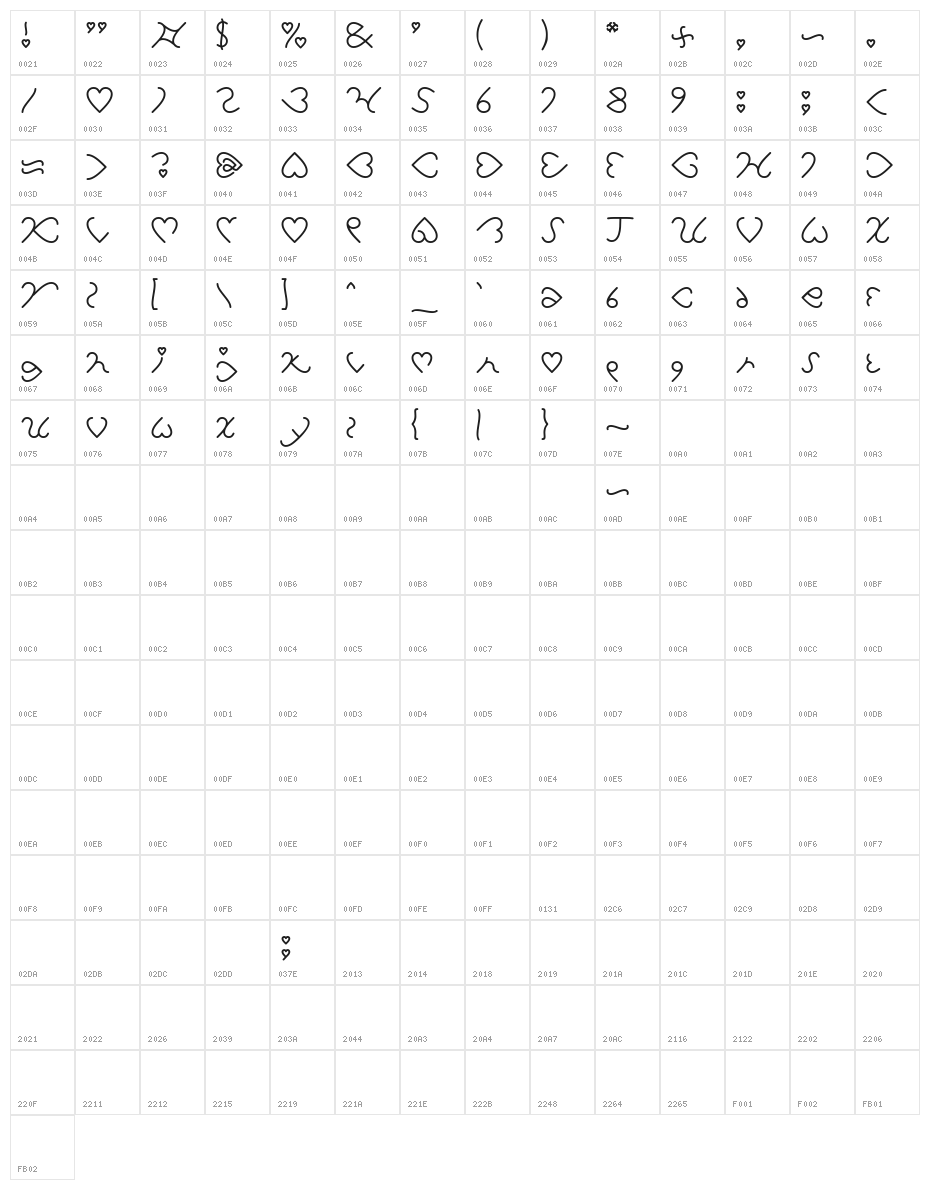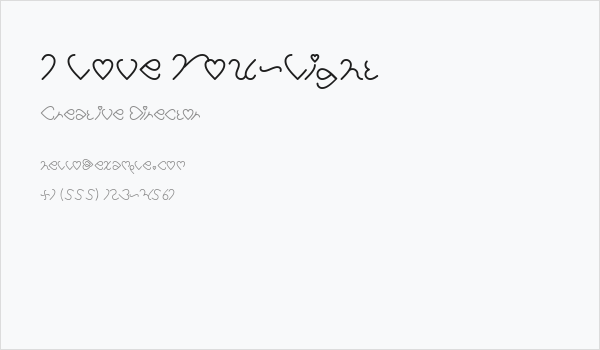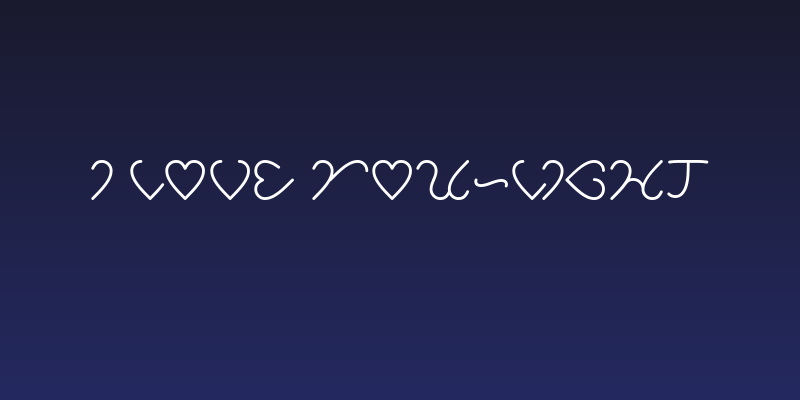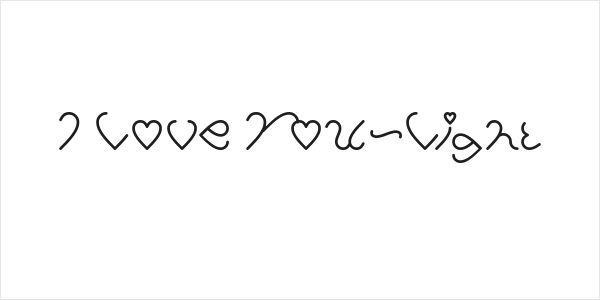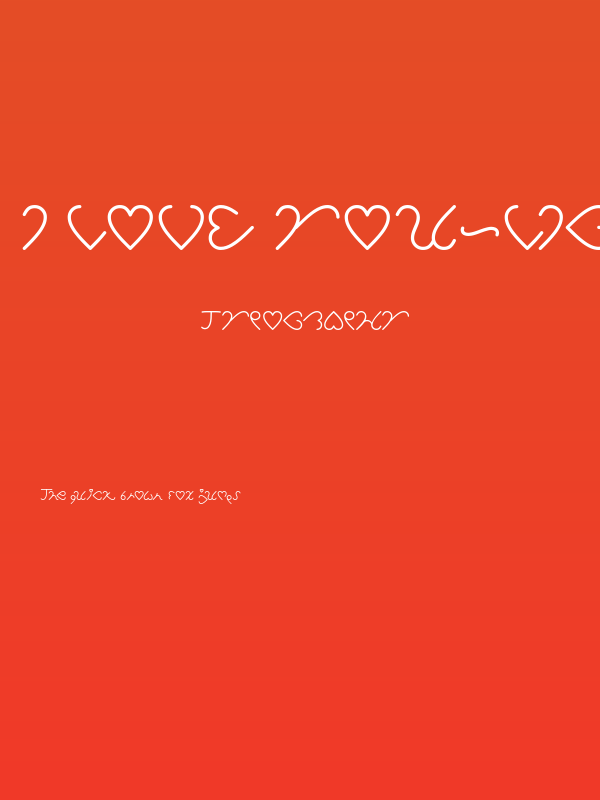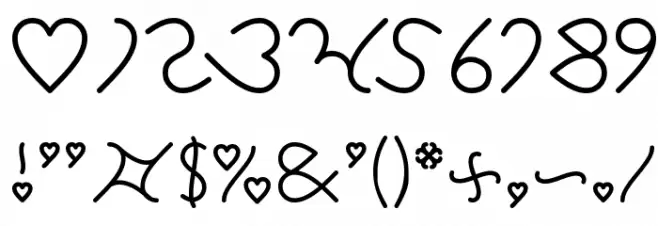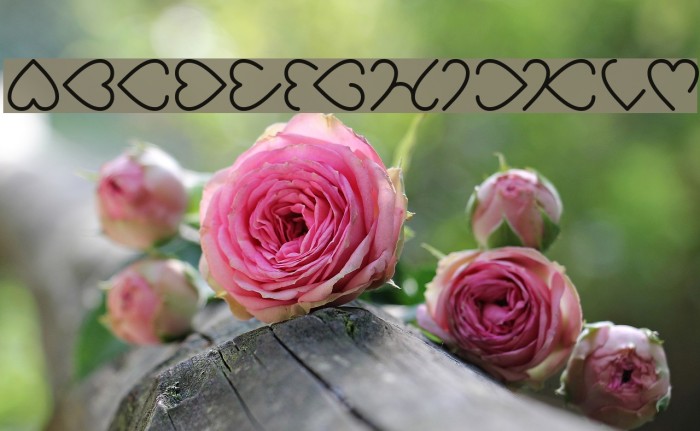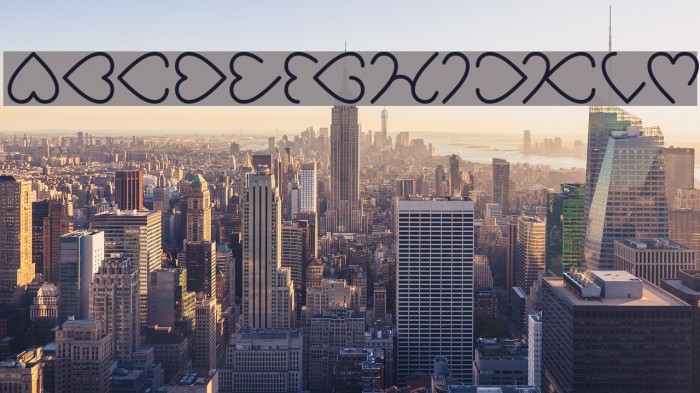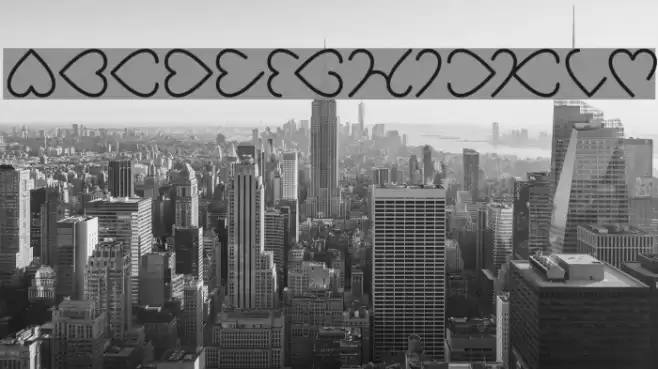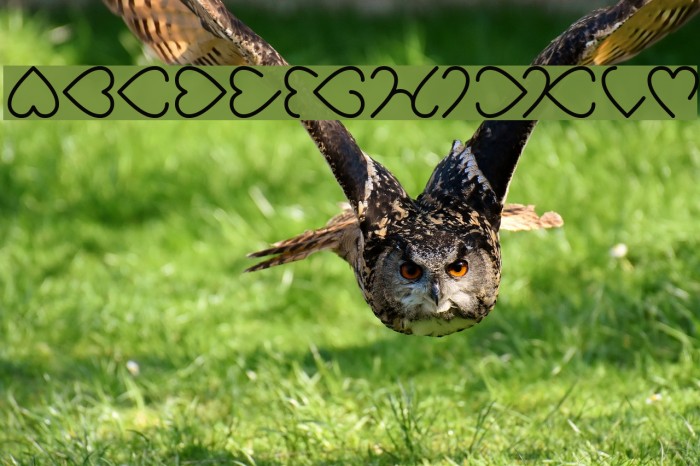
I Love You-Light Font
I Love You-Light Description
This playful and romantic font features heart motifs integrated into each character, creating a whimsical and affectionate style. The letters are crafted with smooth, flowing lines that give a sense of movement and joy. Uppercase and lowercase letters maintain a consistent design, with hearts cleverly incorporated into the structure of each letter. The numerals and special characters also follow this theme, ensuring a cohesive look throughout. This font is perfect for projects that aim to convey love, warmth, and creativity.
| Proposed Projects | Ideal for wedding invitations, Valentine's Day cards, love letters, and romantic branding. |